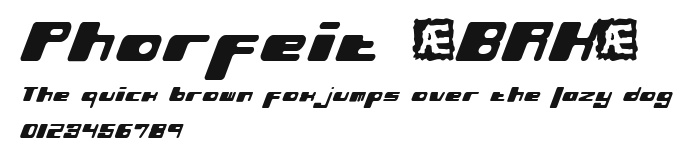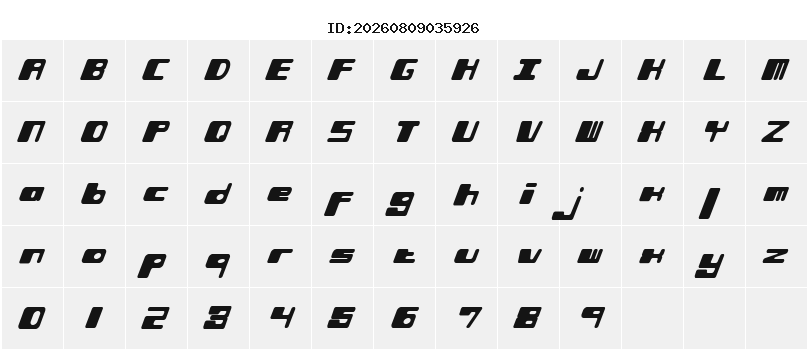
Phorfeit (BRK) Preview
• Font Name: Phorfeit (BRK)
• Full Font Name: Phorfeit (BRK)
About Phorfeit (BRK).ttf
Phorfeit (BRK).ttf is a modern, elegant sans-serif font designed for ultimate readability and visual harmony. Perfect for branding, headlines, web design, and print materials.